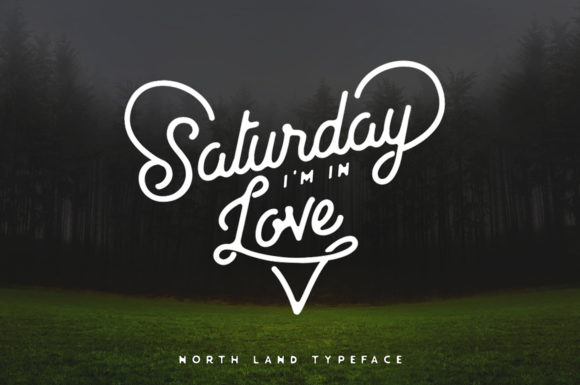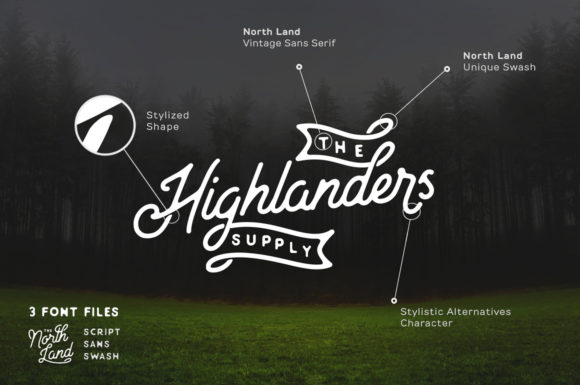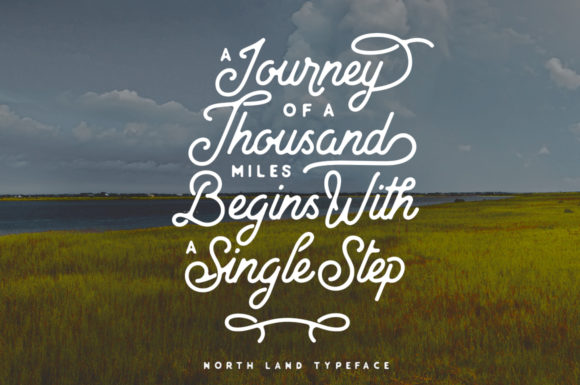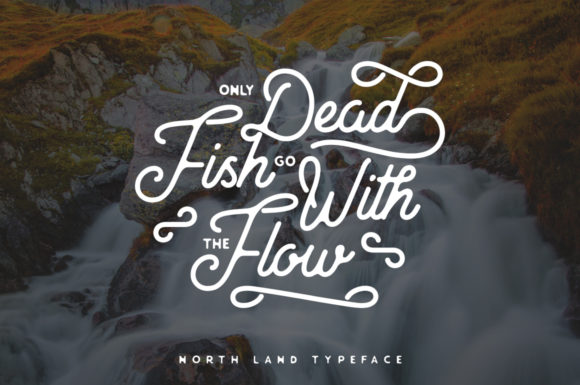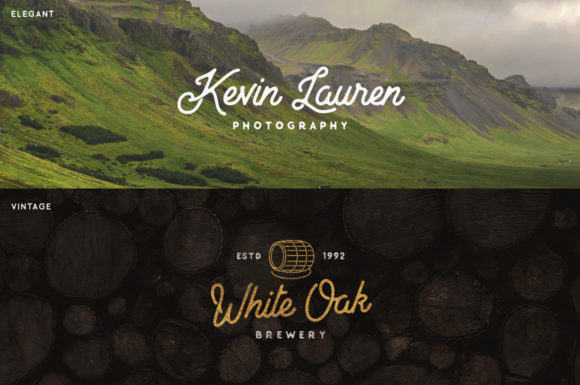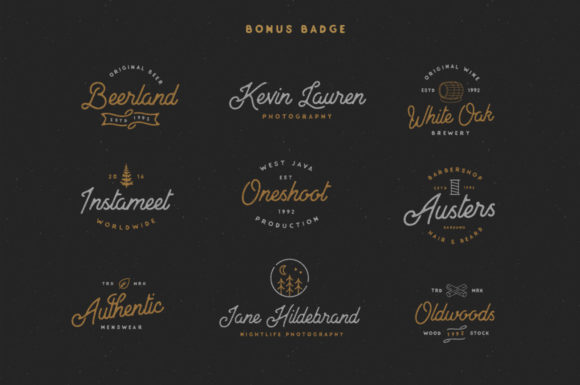
Introduction to North Land Font
Do you remember that moment when a simple idea sparked a creative project that you just couldn’t wait to bring to life? For many of us, it’s the moment when the perfect font comes along and makes all the difference. That’s exactly what North Land Font does – it simplifies elegance into one truly outstanding display font that will elevate any design to new heights.
Whether you’re a seasoned designer or just starting out, North Land Font is a valuable resource that will help you turn your creative ideas into stunning visuals. With its high-quality design and transparent background, this font is perfect for a variety of projects, from Instagram posts to DIY calligraphy scripts. And the best part? You can download it for free and start experimenting with it right away.
As a design resource, North Land Font offers endless possibilities for creativity and self-expression. Its unique style and versatility make it an ideal choice for designers who want to add a touch of sophistication and elegance to their work. So why not give it a try and see what amazing things you can create with North Land Font?
Key Features of North Land Font
- Unique, hand-crafted design that adds a touch of elegance and sophistication to any project
Honest Review: North Land Font
I recently stumbled upon the North Land Font and I’m excited to share my thoughts on this unique design resource. As a designer, I’m always on the lookout for high-quality fonts that can elevate my creative projects.
- The font’s unique, hand-drawn style adds a touch of personality to any design project.
- The font is highly versatile and can be used for a wide range of creative projects, from branding to editorial design.
- The font may not be suitable for all design styles or projects, particularly those that require a more formal or traditional look.
- The font’s unique style may not be to everyone’s taste, and some designers may find it too whimsical or unconventional.
Overall, I think the North Land Font is a great addition to any designer’s toolkit. While it may not be suitable for all projects, it’s a high-quality design resource that can add a unique touch to your creative work.
Tips for Getting the Most Out of North Land Font
Use the North Land Font in creative projects that require a unique and stylish look. Experiment with different font sizes, colors, and styles to achieve the desired effect.
The North Land Font is ideal for designing invitations, social media graphics, and presentations that require a high-quality and professional look.